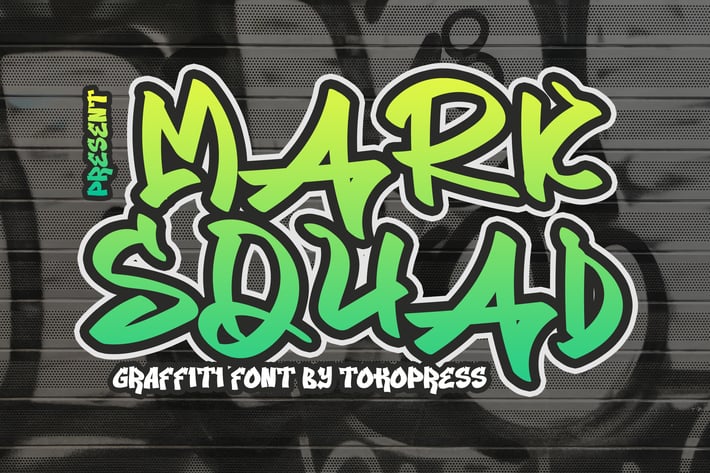
MARK SQUAD - Graffiti font
MARK SQUAD - Graffiti Font
MARK SQUAD is a graffiti-inspired typeface infused with urban energy, high-contrast strokes, and explosive rhythm. With jagged terminals, rough brush pressure, and spontaneous movement, it delivers a gritty visual attitude that screams street credibility. Designed with rebellious curves and expressive angles, this font captures the underground spirit of graffiti walls, streetwear culture, and skate branding.
Perfect for bold visual messaging, it thrives in high-impact contexts—think hip-hop flyers, energy drink cans, extreme sports posters, or street fashion logos. Every letter pops with urban tension, graffiti-style dynamism, and untamed personality.
Bring raw street culture into your design workflow. Whether you're creating apparel branding, youth-focused merchandise, music event posters, or YouTube thumbnails, MARK SQUAD gives your visuals a loud, unforgettable punch. It’s more than a font—it’s a street movement in motion, designed to speak the language of rebellion, energy, and youth identity.
Key Features :
- Street-Legit Style: Inspired by authentic graffiti tags, urban murals, and hip-hop culture
- Sharp Dynamics: High-contrast strokes and expressive flow enhance visual tension
- Built for Boldness: Perfect for posters, streetwear, stickers, and album art
- Unfiltered Energy: Delivers raw, unpolished emotion for powerful brand storytelling
Fuel your designs with the wild pulse of the streets. MARK SQUAD is not just a font—it’s your ally in creating fearless, culture-driven, high-impact visuals. From product labels to urban apparel, make every word spray-painted with attitude. Don’t blend in—make your mark now.